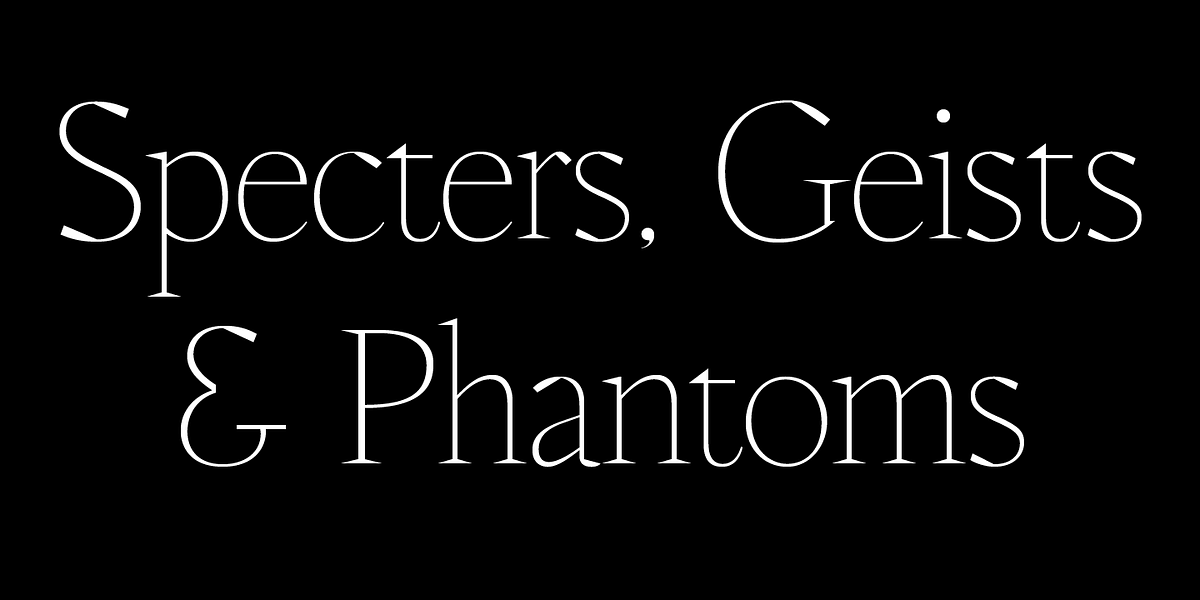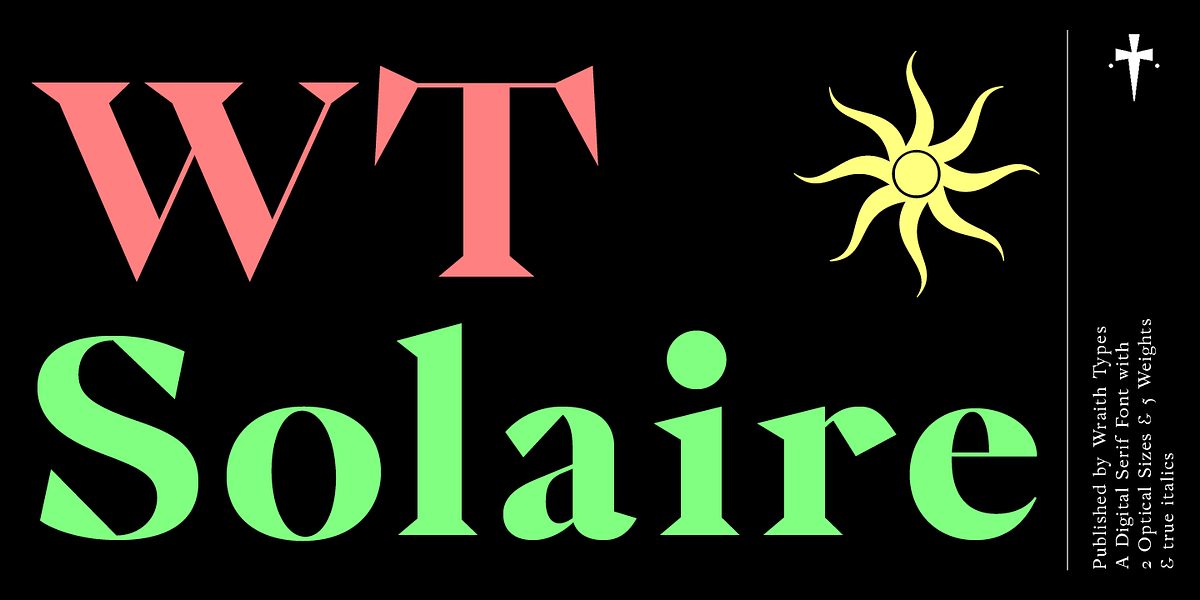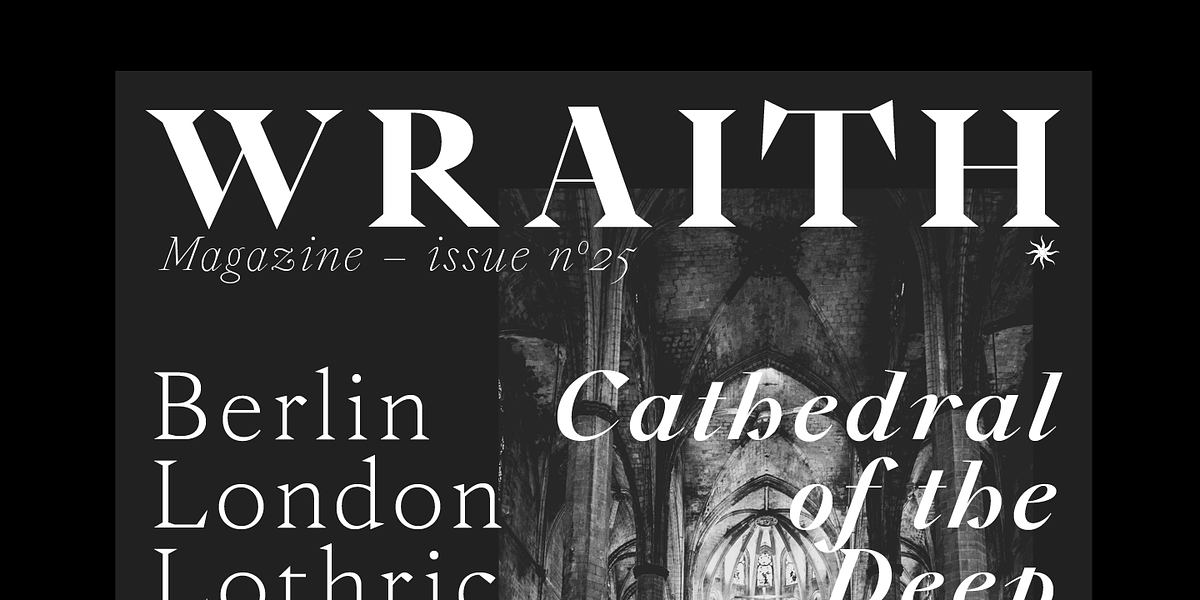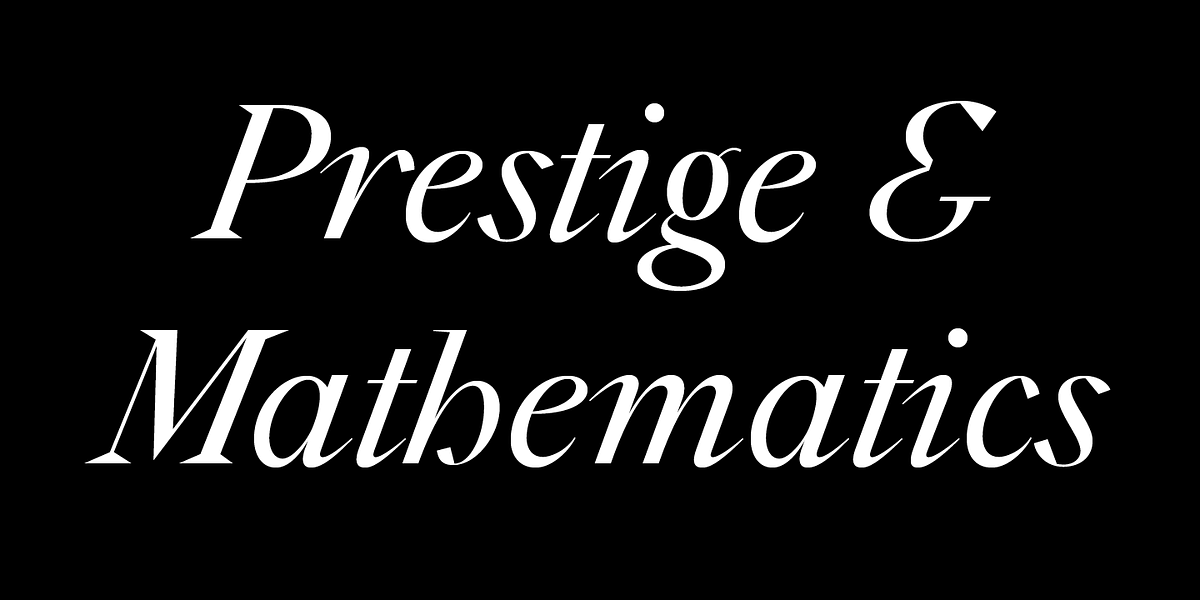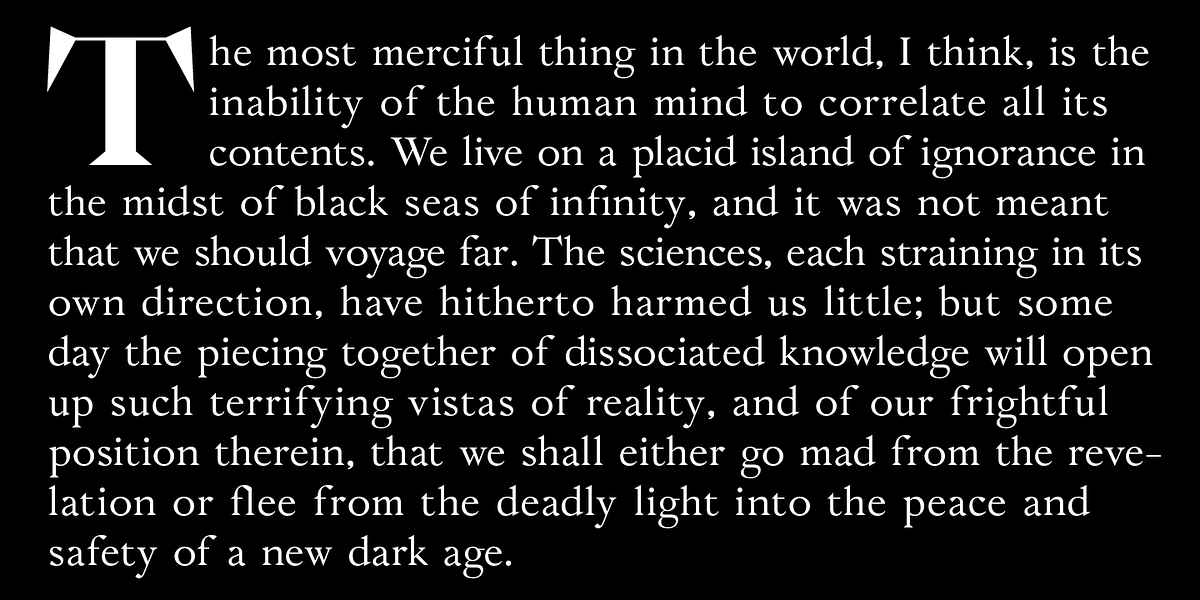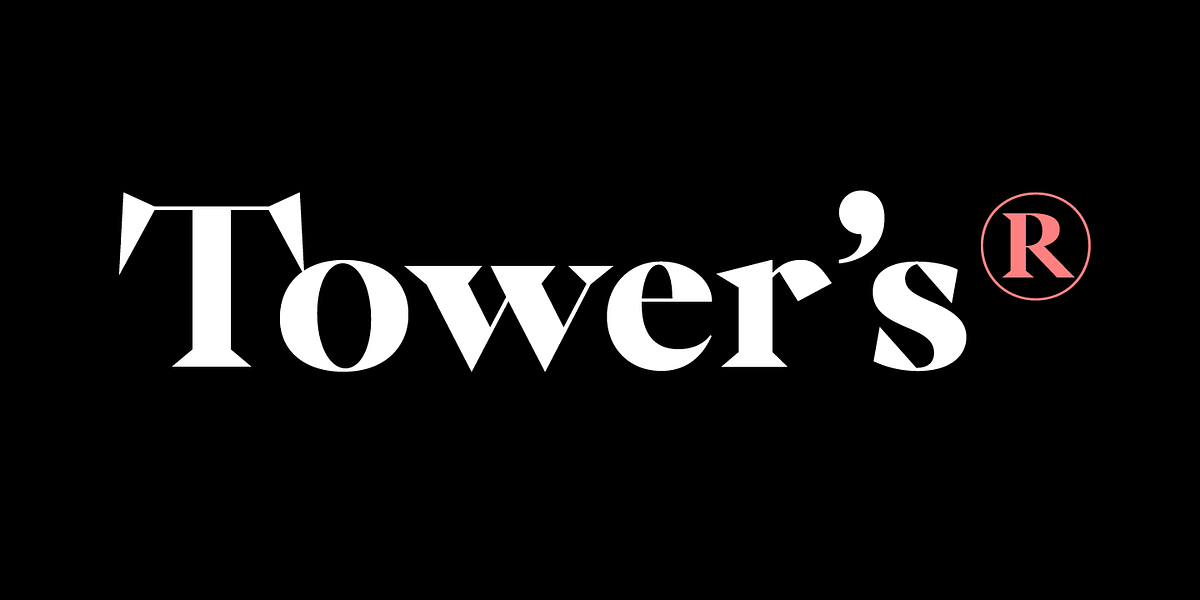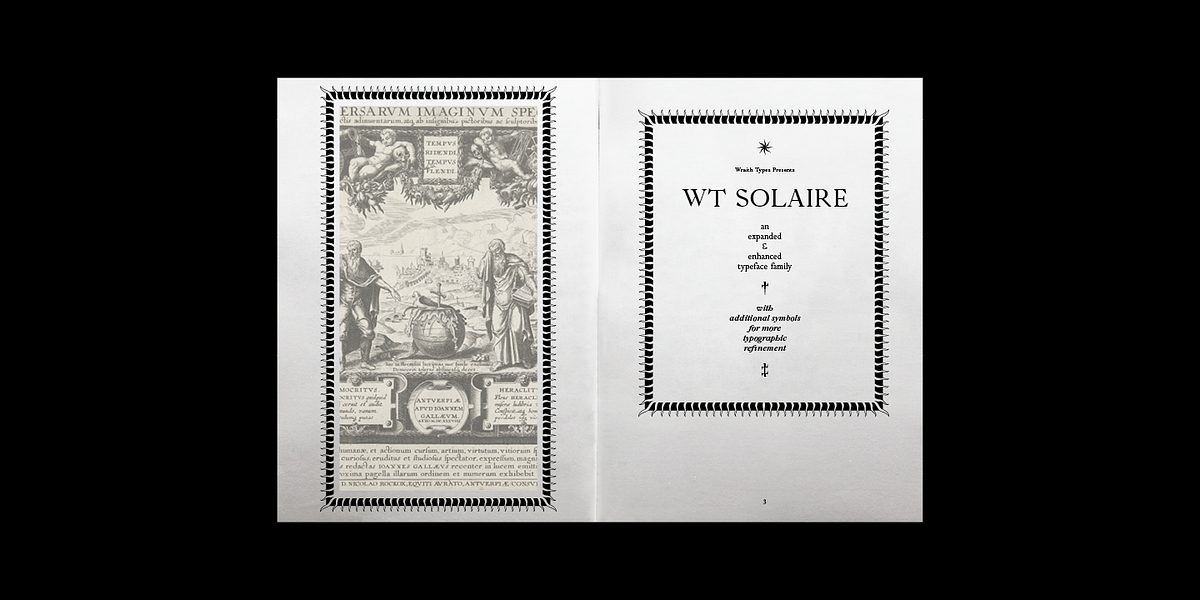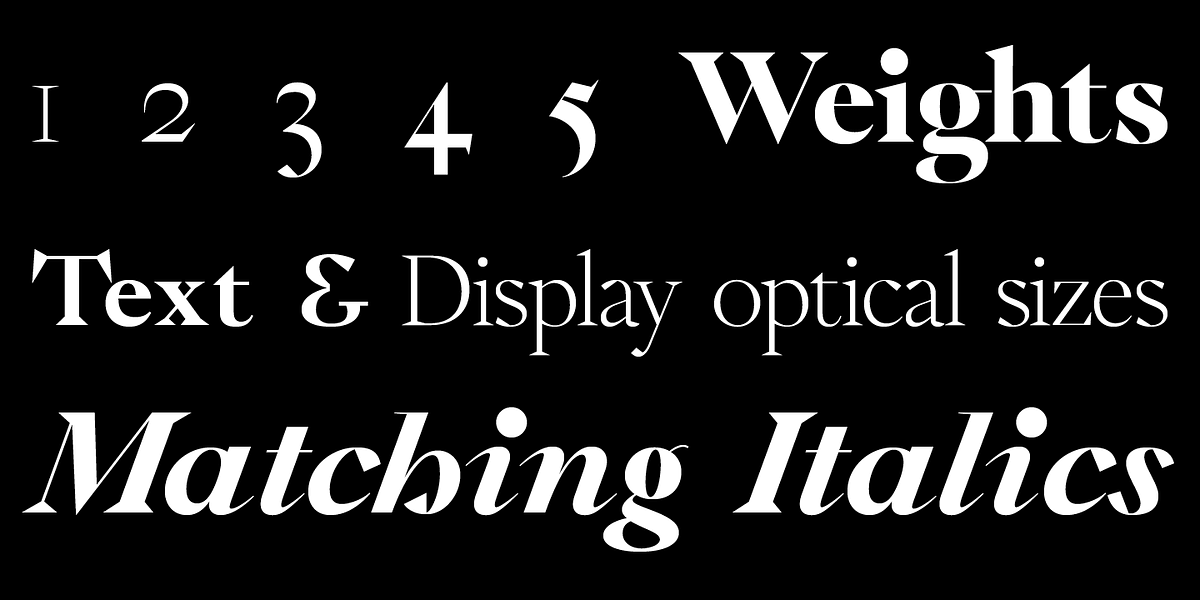
WT Solaire
WT Solaire is a serif typeface inspired by the Fell Types, particularly the weights designed by Peter De Walpergen. It aims to be a modern interpretation of these classic designs. The font's elegance and sharpness make it suitable for editorial projects like magazines and books, as well as use with imagery.